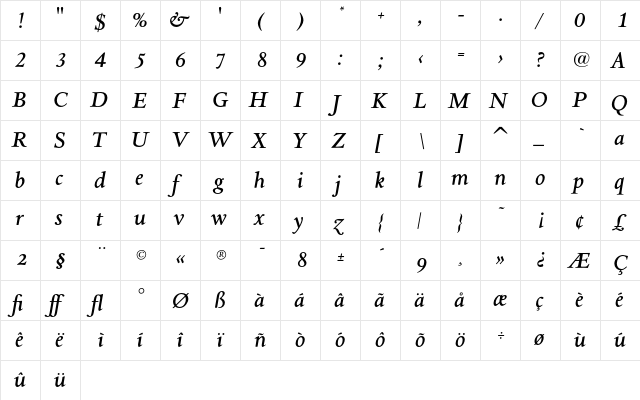
AsdanteMediumItalic Regular
Design Context for AsdanteMediumItalic Typeface
AsdanteMediumItalic takes a measured approach to typography — its balanced proportions and neutral character make it a reliable workhorse for both digital and print work. The slanted form adds forward momentum and visual energy.
Pro Tip: Try AsdanteMediumItalic for annotation and caption copy alongside an upright companion — the contrast in angle creates a dynamic but ordered typographic system.